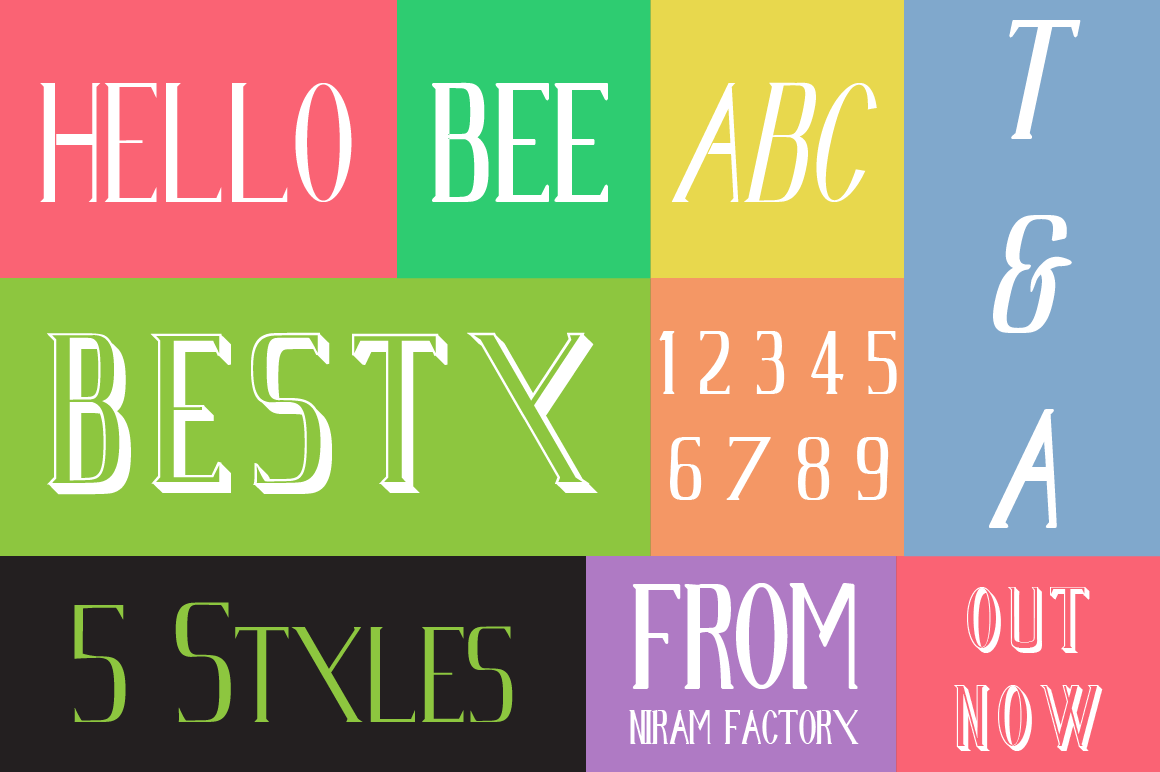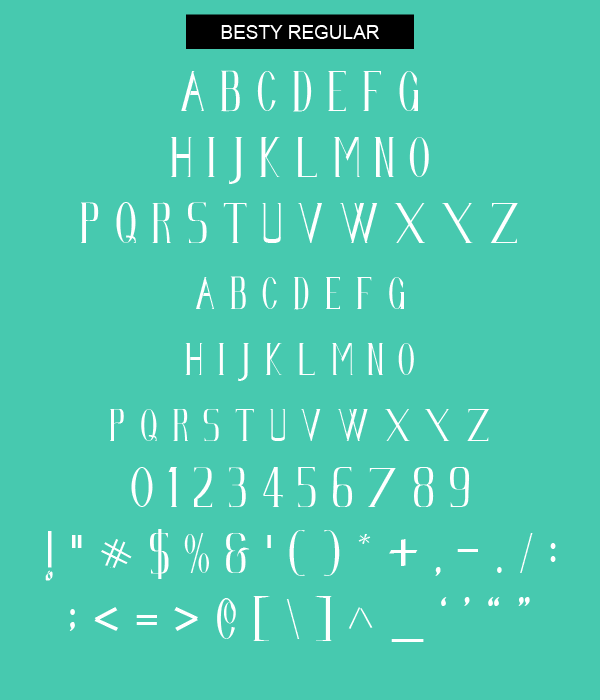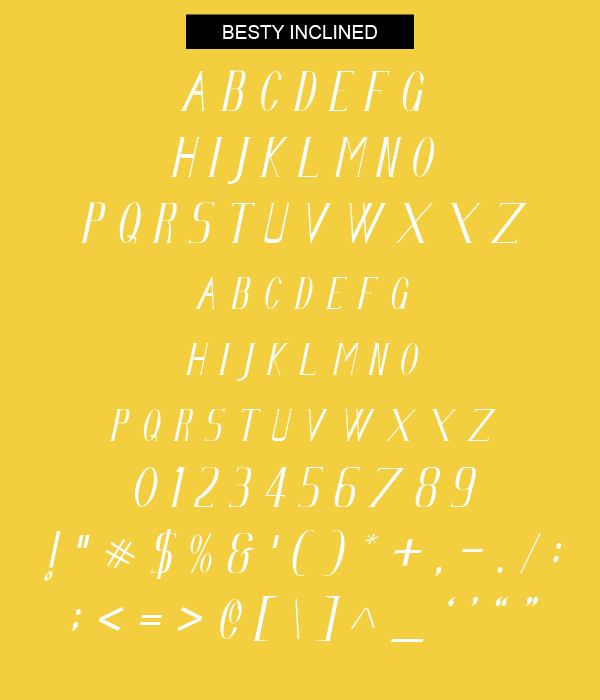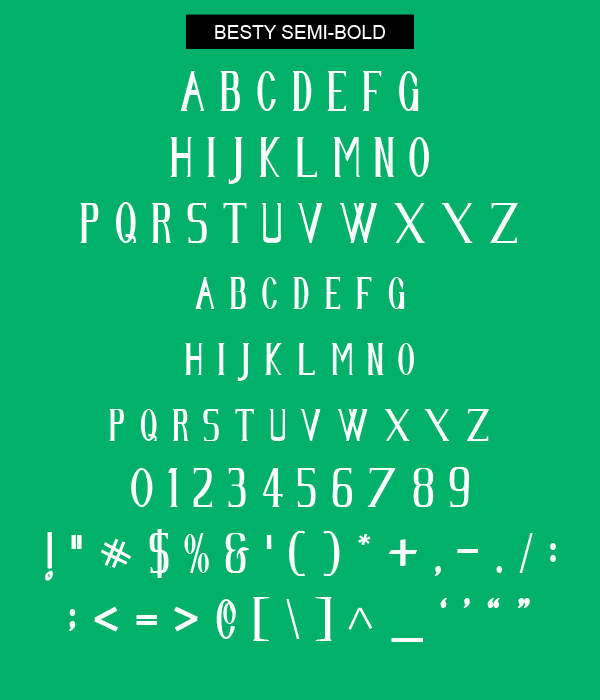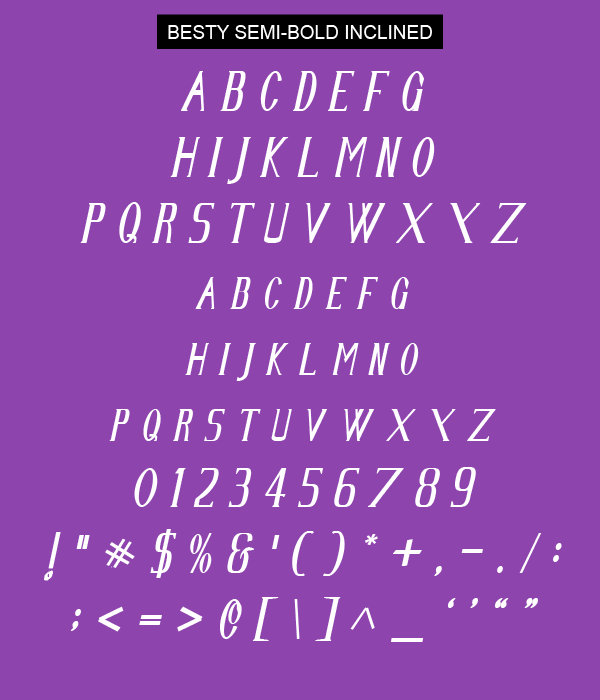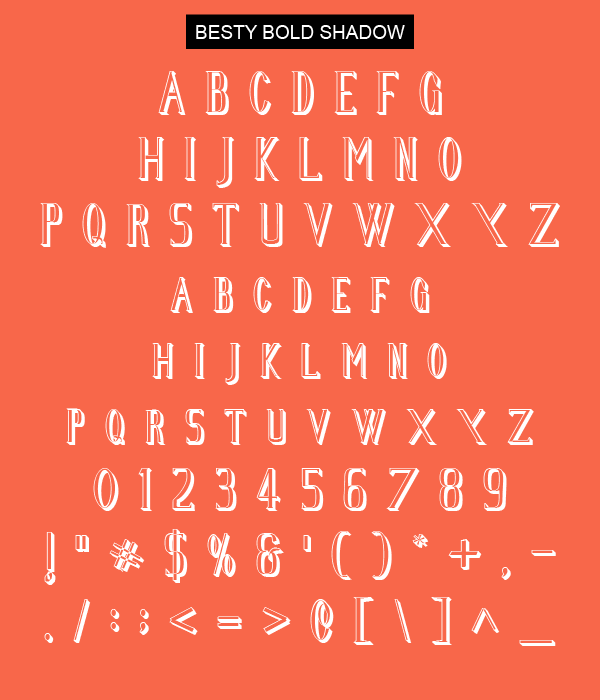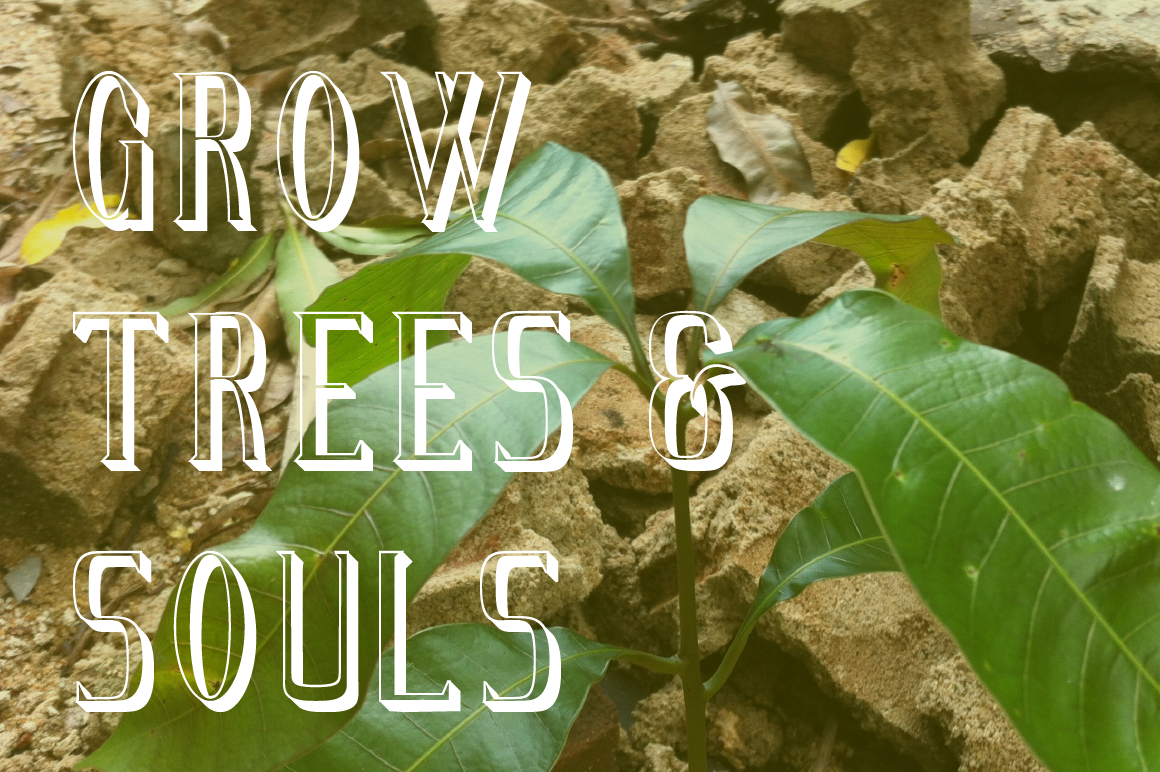
Besty is a geometrically awesome and organically pleasing typeface that comes in five gorgeous styles to choose from. This typeface designed with full of love and attention and have a unique 'y' with it.
You can spice up your design with this gorgeous Besty font, which comes with uppercase, small capitals, numerals, punctuations and some awesome symbols.